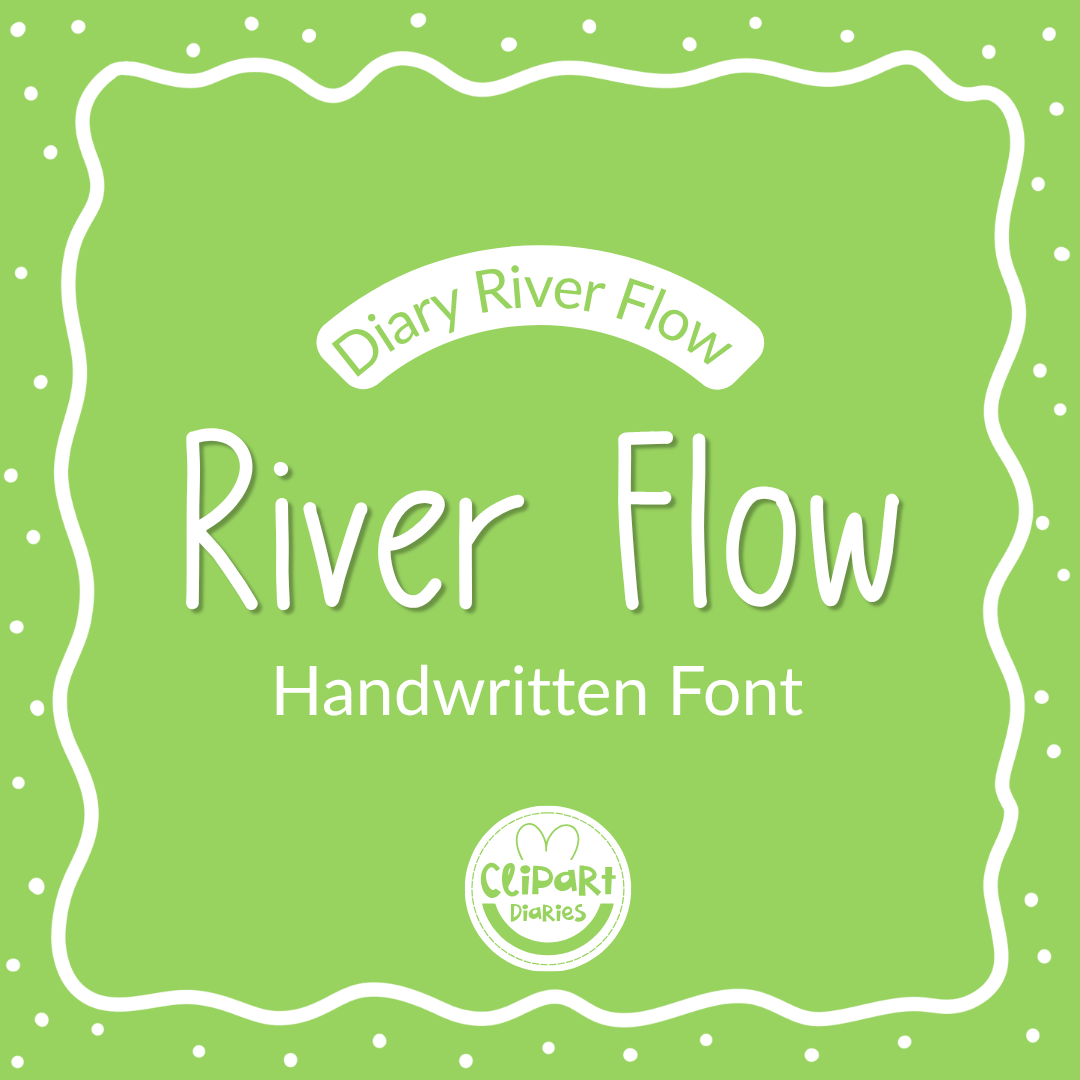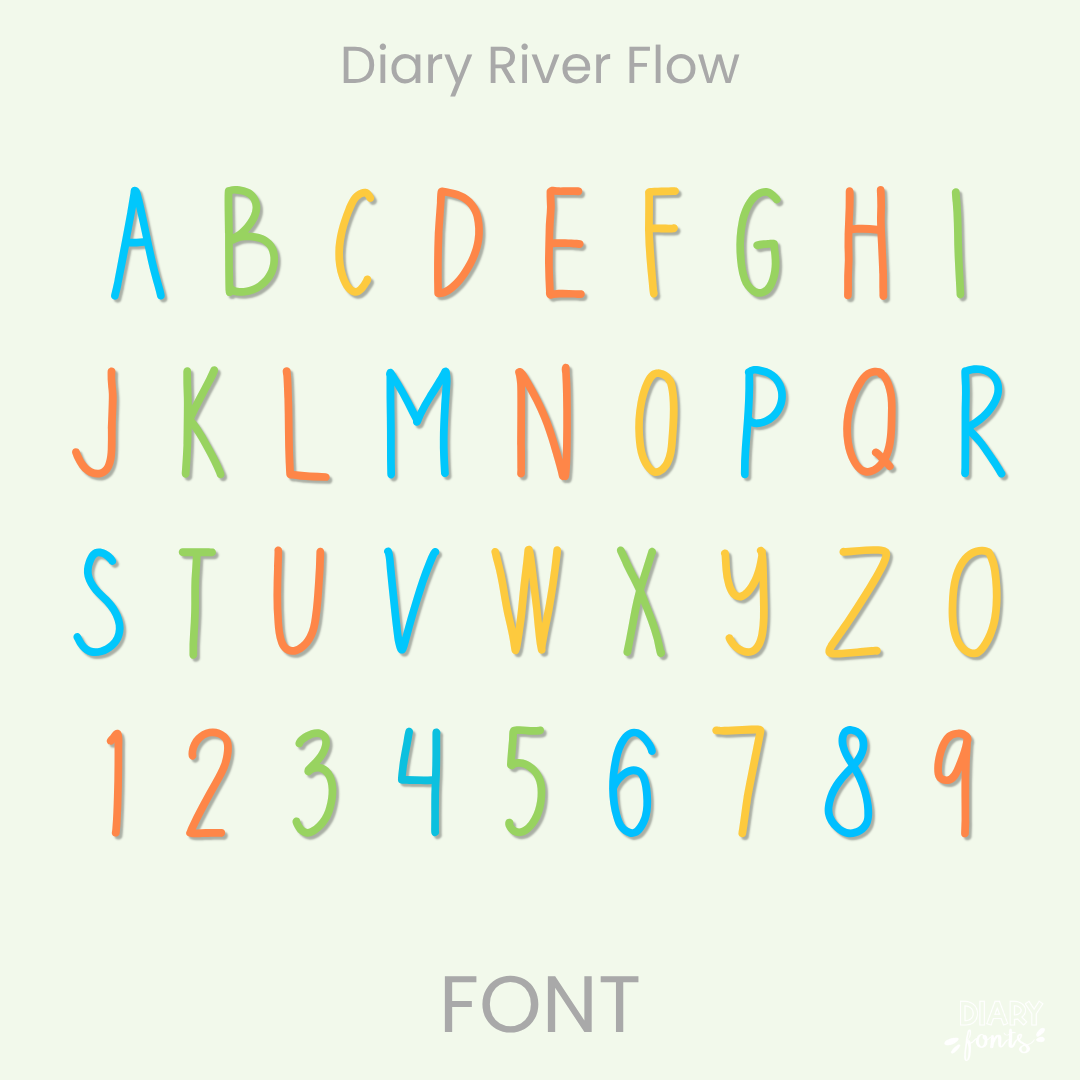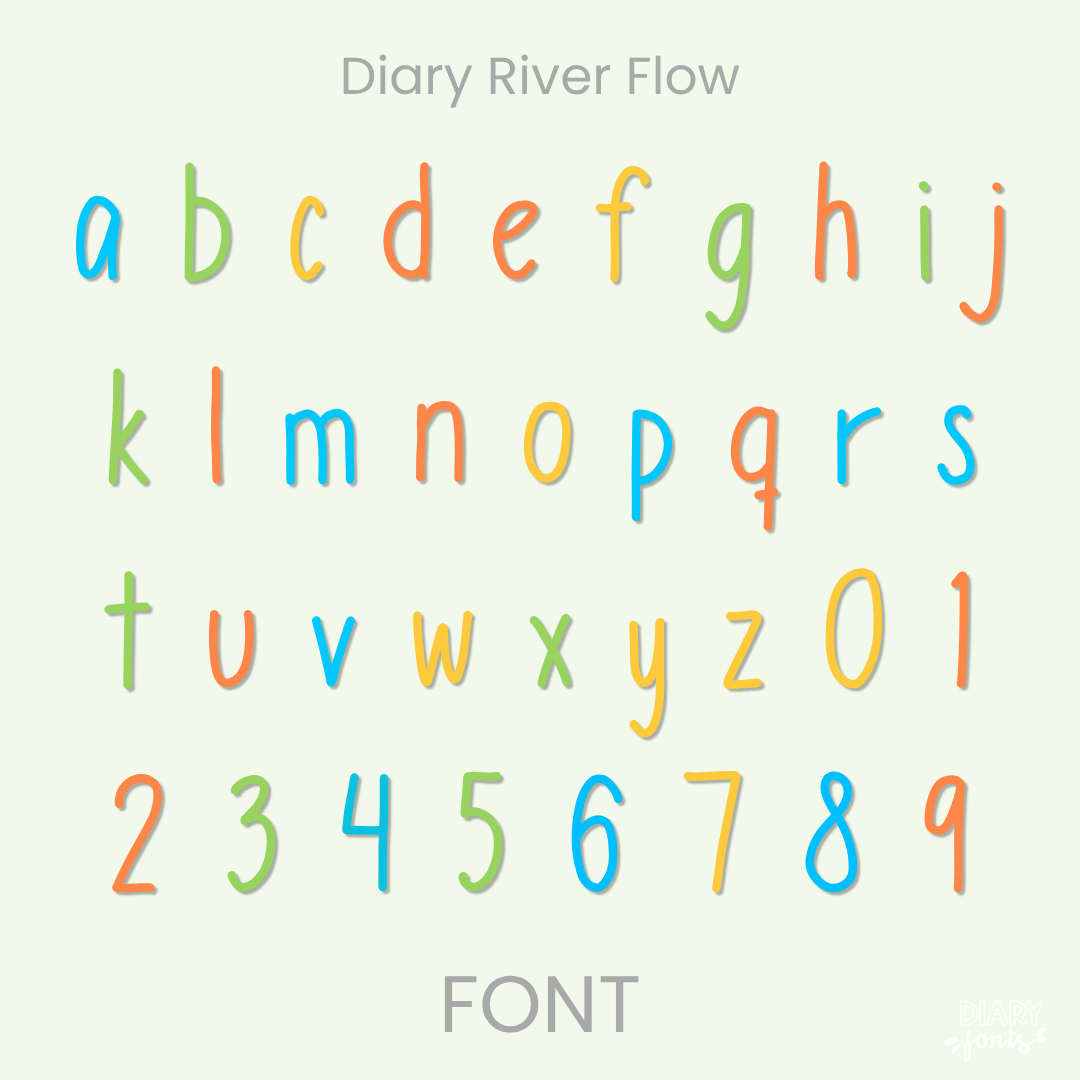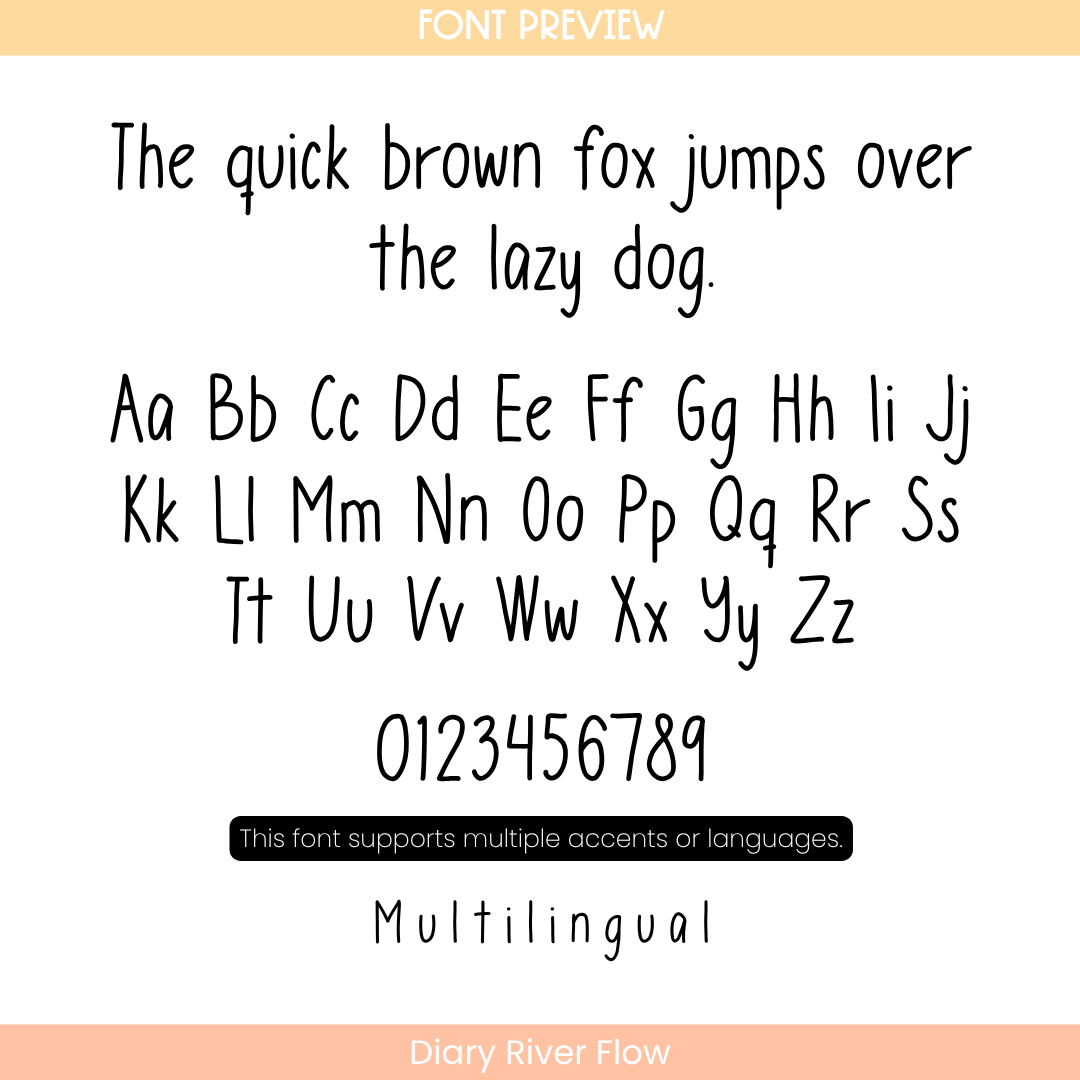
If you’re looking for a font that is beautifully structured but still packed with sweet, hand-drawn personality, Diary River Flow is about to become your new best friend. It features a gorgeous, elongated letter design with clean, slender lines that sit perfectly straight along the baseline. Because the letters are nice and tall with lots of breathing room between them, it completely cuts out the clutter, making it incredibly clear and easy for your students to track and read.
It is the perfect choice for typing up daily reading passages, morning meeting slide titles, spelling lists, and clean classroom labels where you want a sweet, hand-crafted vibe without losing a bit of legibility. Inside the download, you’ll get a full set of uppercase and lowercase letters, neat matching numbers, and multi-accent support for different languages. It drops right into Canva, MS Office, or Adobe on your desktop, and pairs beautifully with Procreate and GoodNotes on your iPad. Whether you’re prepping daily activities for your own sweet students or designing fresh commercial resources for your teacher shop, this narrow beauty adds a touch of effortless, friendly style to your toolkit.